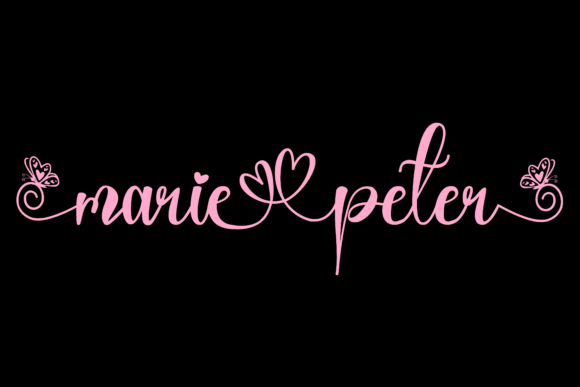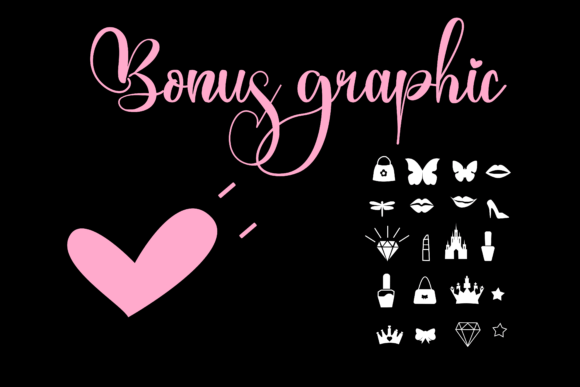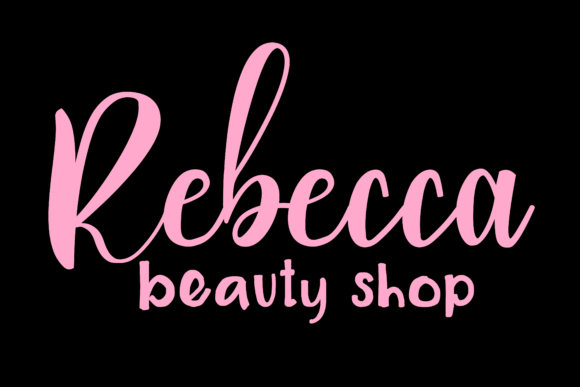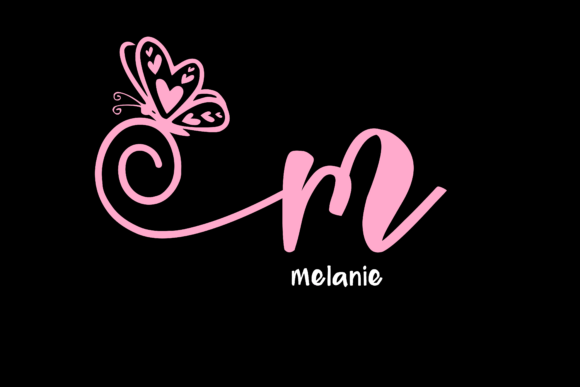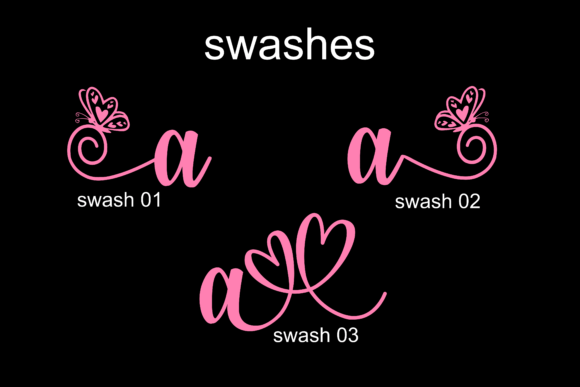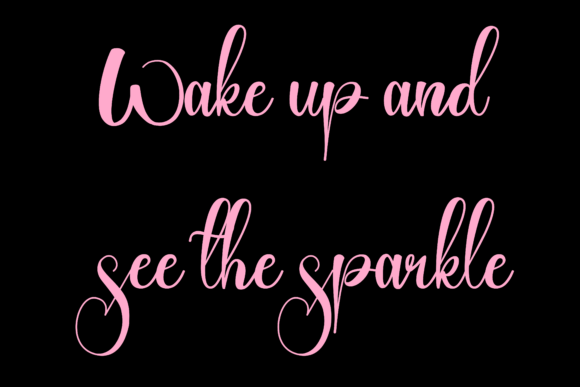
Welcome to the World of Hello Barbie Font
Have you ever sat in front of your computer, staring at a blank screen, and suddenly, a spark of creativity hits you? The words start flowing, and your imagination runs wild. It’s moments like these that make being a designer truly magical. And, for those of us who love creating, there’s nothing quite like having the perfect tool to bring our visions to life.
Enter the Hello Barbie Font, a stunning handwritten font that’s as elegant as it is versatile. With its flowing lines, gorgeous glyphs, and stunning alternatives, this font is the perfect companion for designers looking to add a touch of sophistication to their projects. Whether you’re working on a branding project, a wedding invitation, or a beautiful piece of digital art, the Hello Barbie Font is sure to elevate your work to new heights.
Hello Barbie Font Key Features
- Font Family: A custom-designed font family, specifically created for Hello Barbie.
- Unique Characteristics: The font features a playful, child-friendly aesthetic with rounded edges and smooth lines, perfect for a doll like Hello Barbie.
- Script Support: The font includes a wide range of script and ligature support, allowing for smooth text rendering and readability.
Hello Barbie Font Review
I recently had the chance to work with the Hello Barbie Font, and I have to say it’s a unique and charming font. ✨ The playful and whimsical feel of the font is perfect for any project that requires a touch of childhood magic. It’s a great choice for titles, headings, and even body text in children’s books, educational materials, and more.
Here are some of the things I love about the Hello Barbie Font: ✨
- Its legibility is top-notch, making it easy to read even in small sizes.
- The font’s weight and contrast make it perfect for creating visual interest.
- It’s fully scalable, ensuring it looks great on any device or screen.
However, I do have a few concerns: ⚠️
- The font might be too cutesy for certain projects or audiences.
- Some characters might not be as well-designed as others, which can lead to inconsistencies.
Overall, I think the Hello Barbie Font is a great addition to any designer’s toolkit. While it may have some limitations, its unique charm and versatility make it a great choice for the right project. With a little creativity and care, this font can add a touch of magic to your designs.
Tips for Getting the Most Out of the Hello Barbie Font
Use the Hello Barbie Font for creative projects, such as invitations, posters, and social media graphics.
Combine the font with other design elements, such as images and graphics, to create a visually appealing design.
Experiment with different font sizes and styles to add emphasis and create a unique look.
The Hello Barbie Font is perfect for:
Children’s parties and events
Women’s fashion and beauty projects
Family and friendship-themed designs
Alternatives to Hello Barbie Font
Comic Sans MS is a fun, casual font that is great for informal and playful designs. It is often used in children’s books, magazines, and websites. When to use: Children’s products, casual invitations, and social media posts.
Comparison: Comic Sans MS has a more playful and informal feel compared to Hello Barbie Font, which is more elegant and sophisticated. Hello Barbie Font is more suitable for high-end fashion designs, while Comic Sans MS is better for everyday, casual use.
American Typewriter
American Typewriter is a classic, vintage font that evokes a sense of nostalgia. It is often used in designs that require a retro or vintage feel. When to use: Packaging design, advertising campaigns, and websites with a vintage aesthetic.
Comparison: American Typewriter has a more vintage and classic feel compared to Hello Barbie Font, which is more modern and elegant. Hello Barbie Font is more suitable for high-end fashion designs, while American Typewriter is better for designs that require a retro or vintage feel.